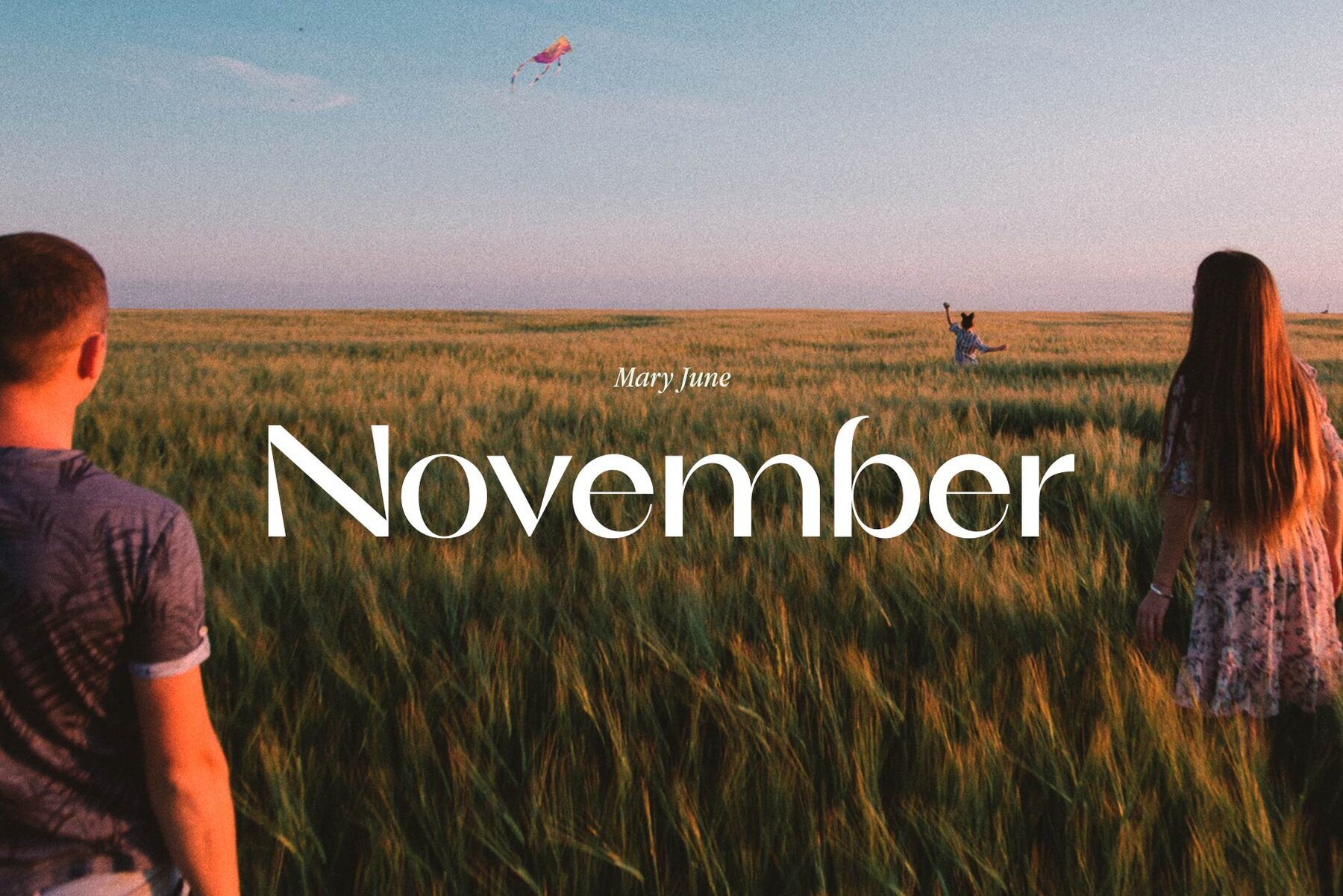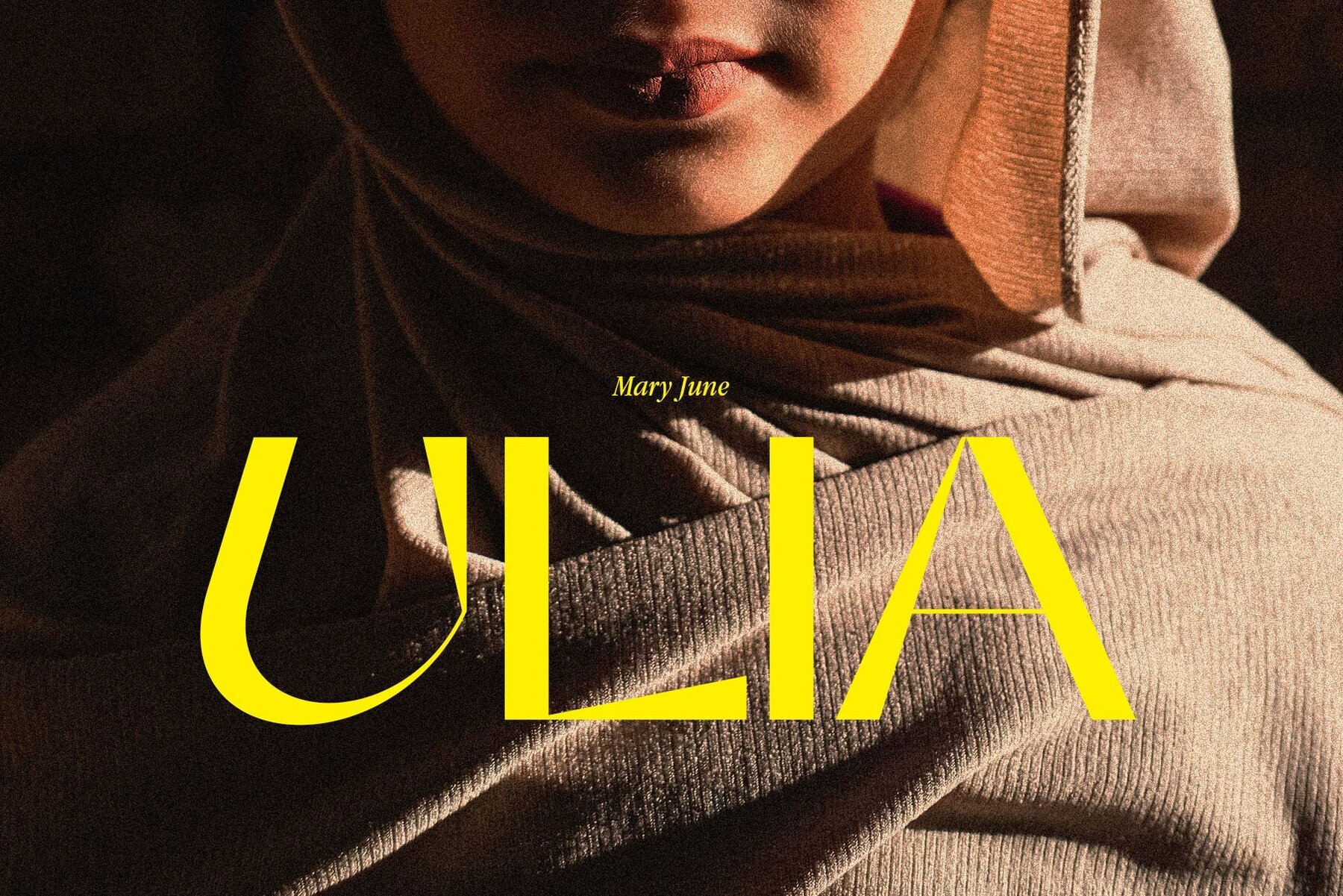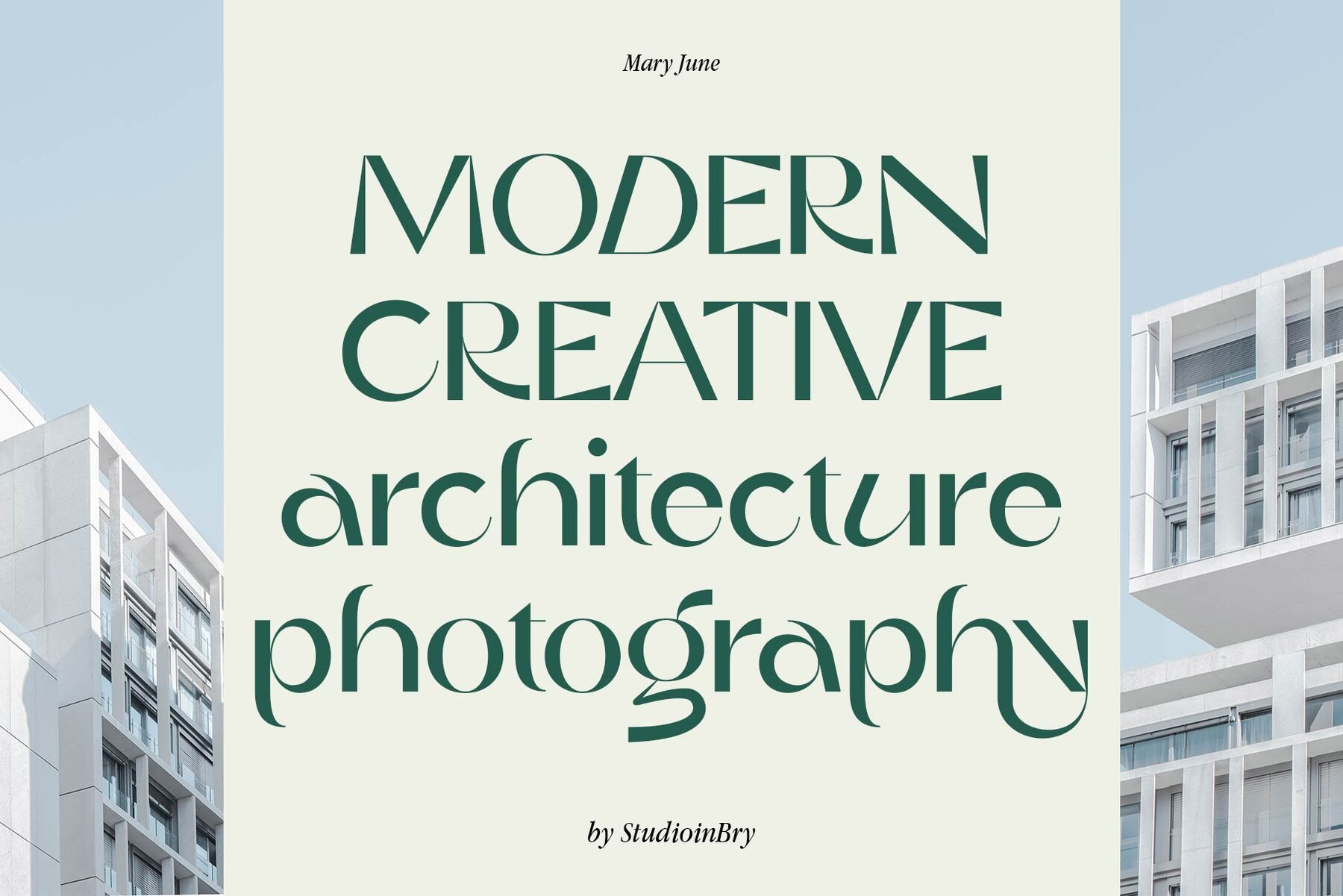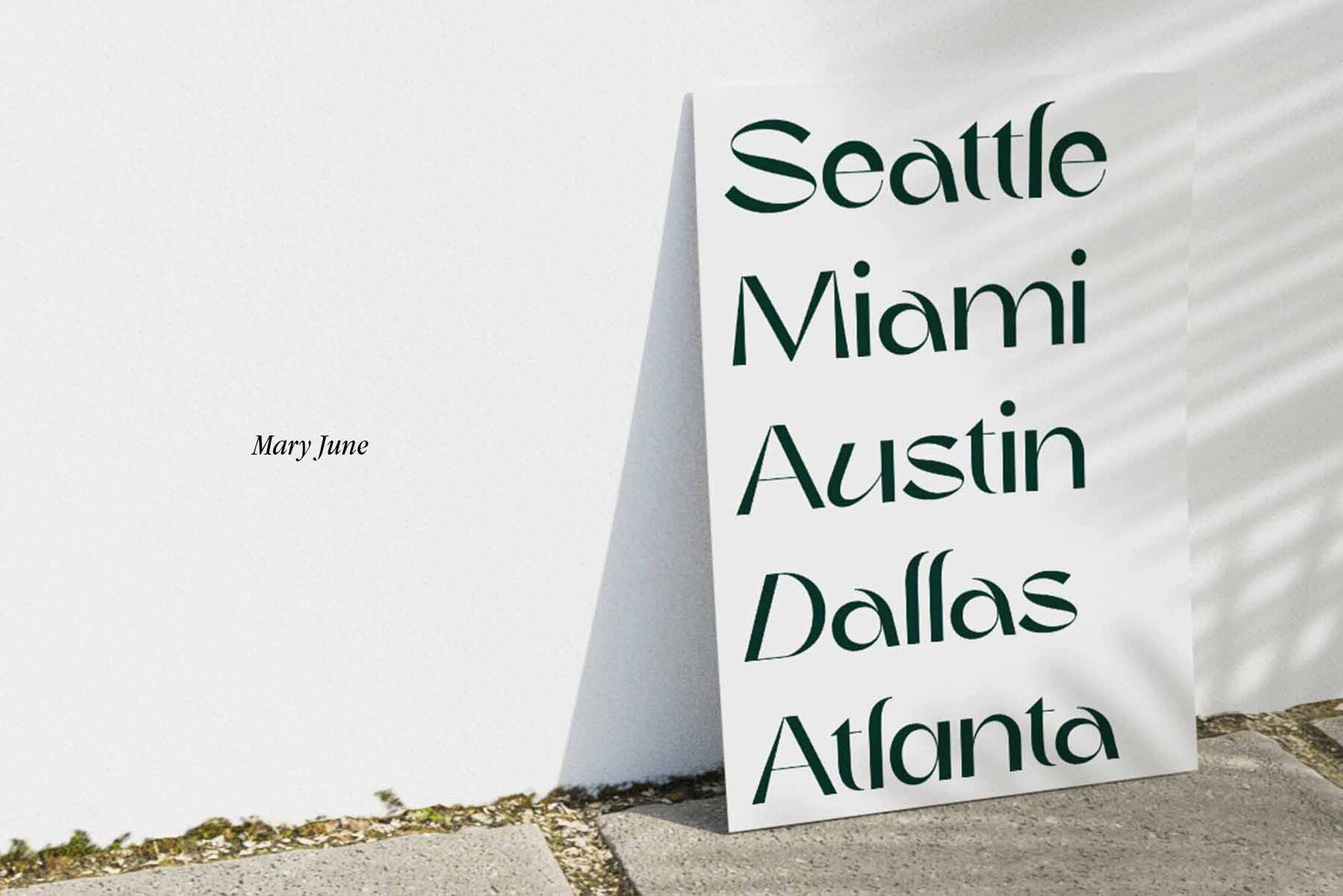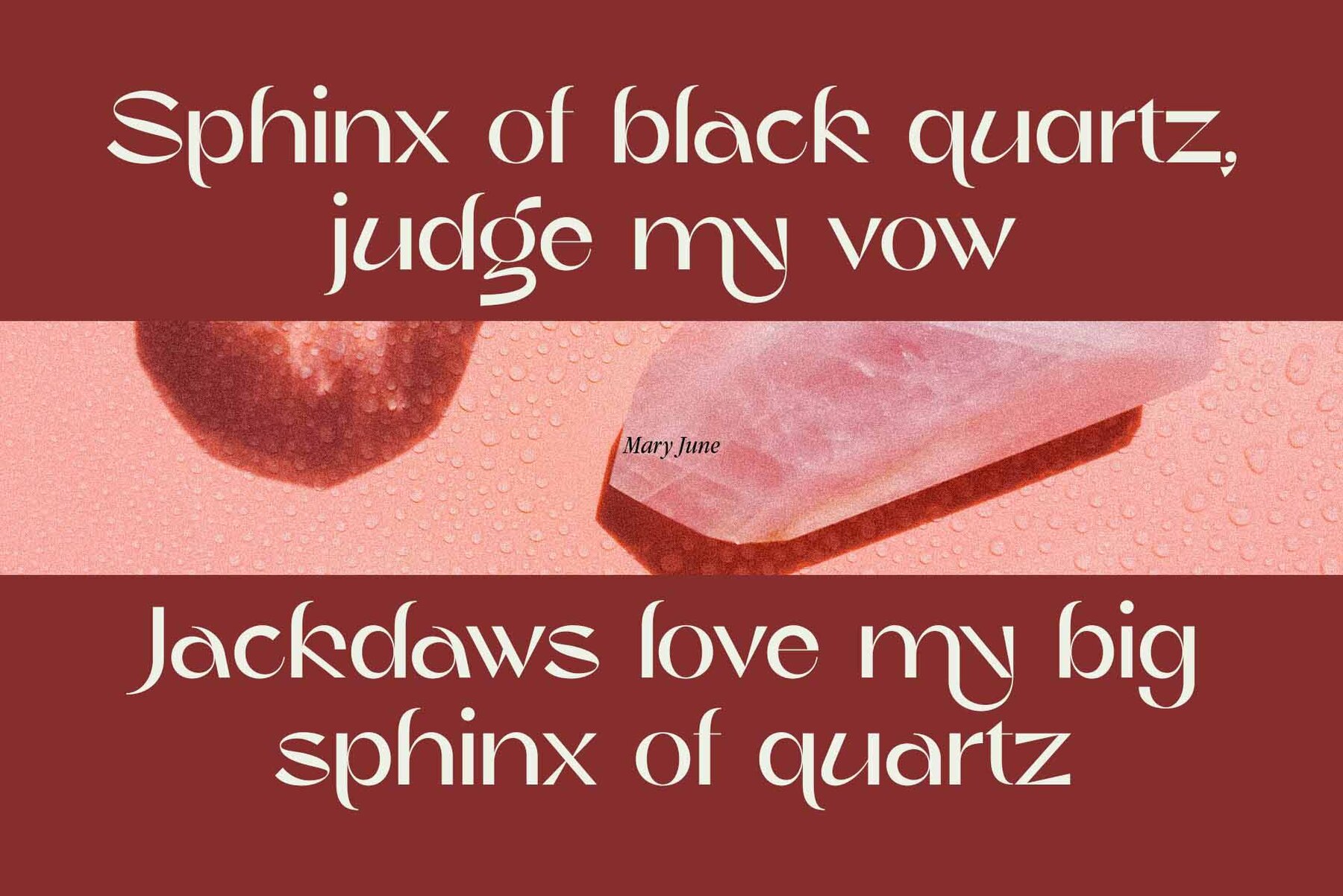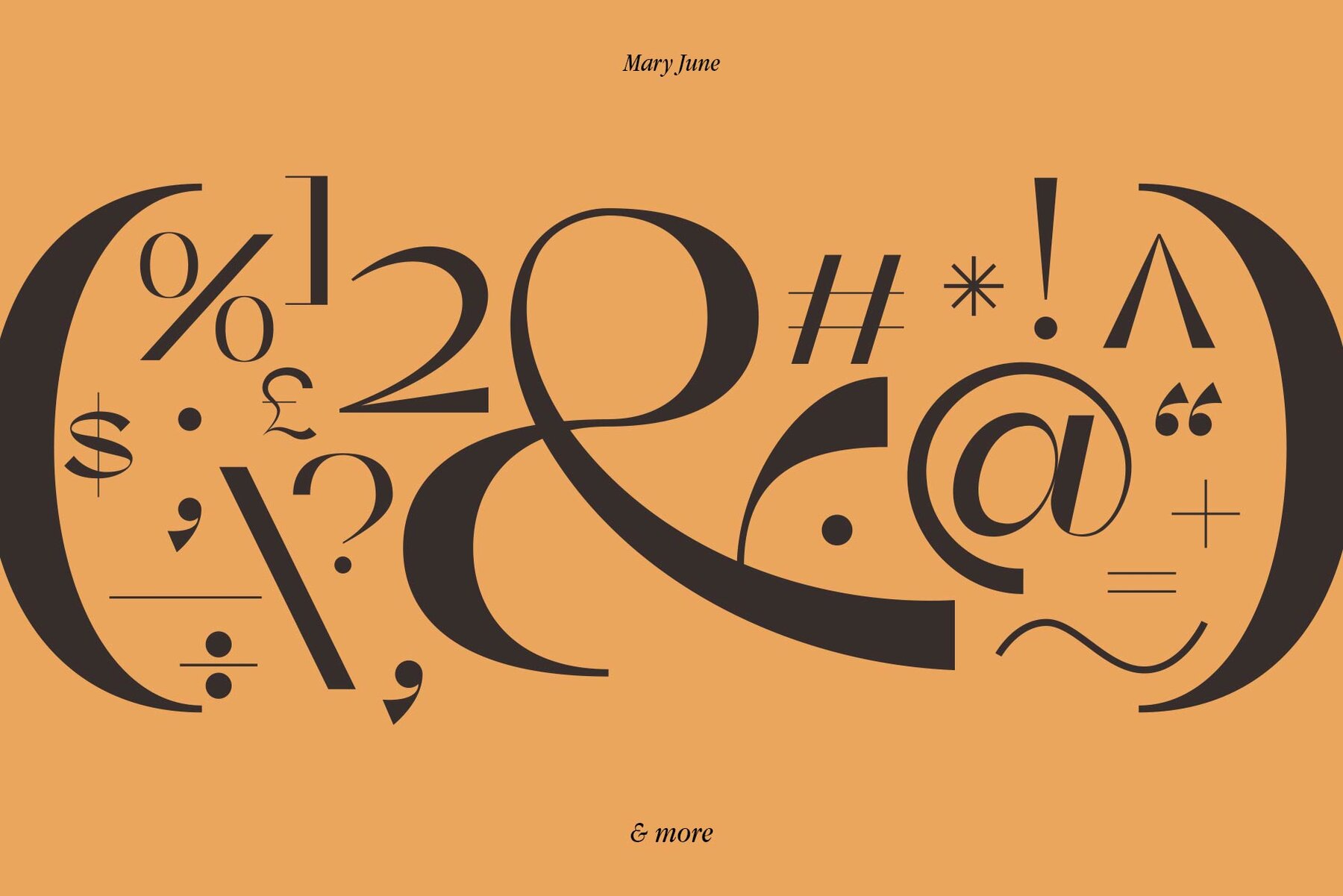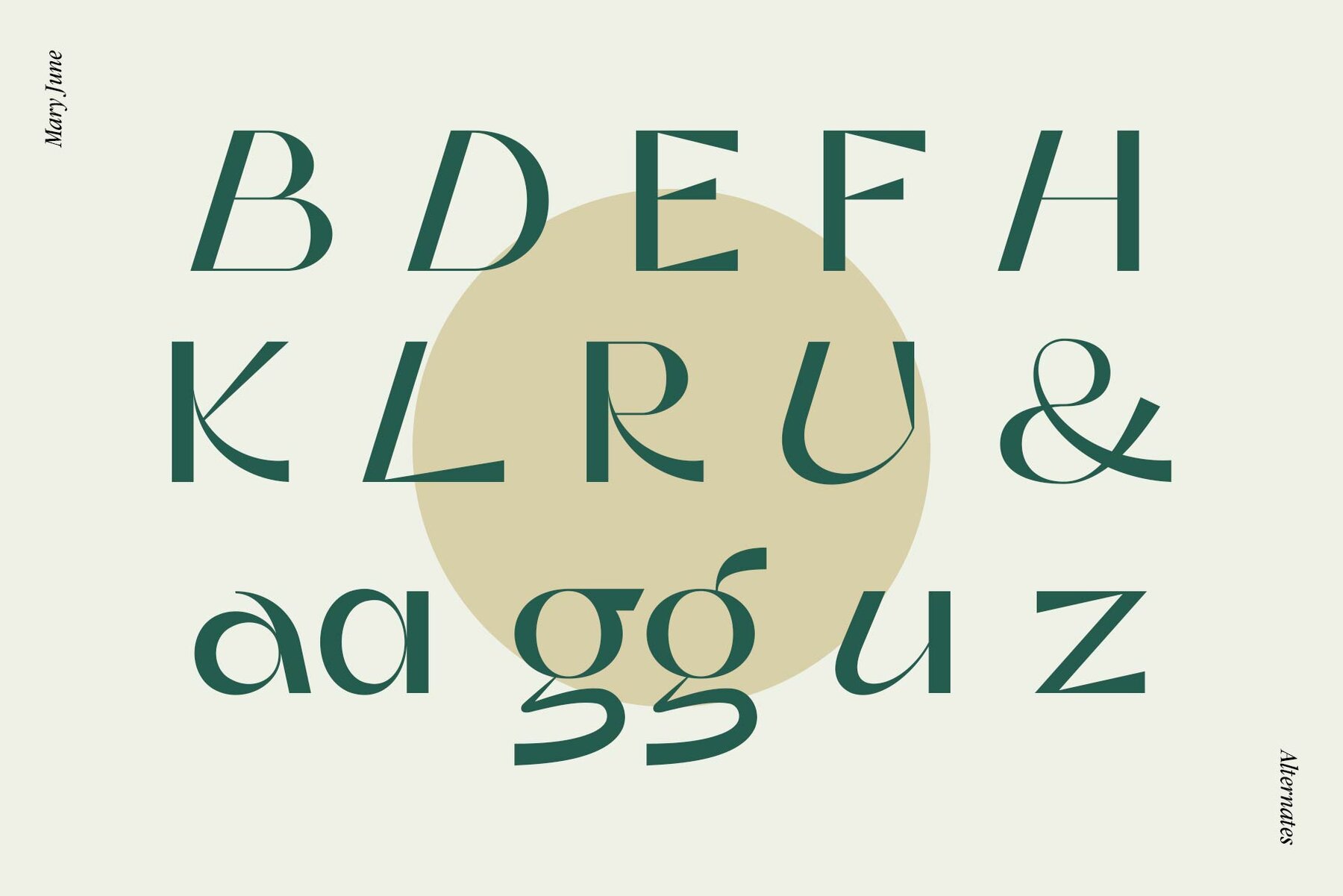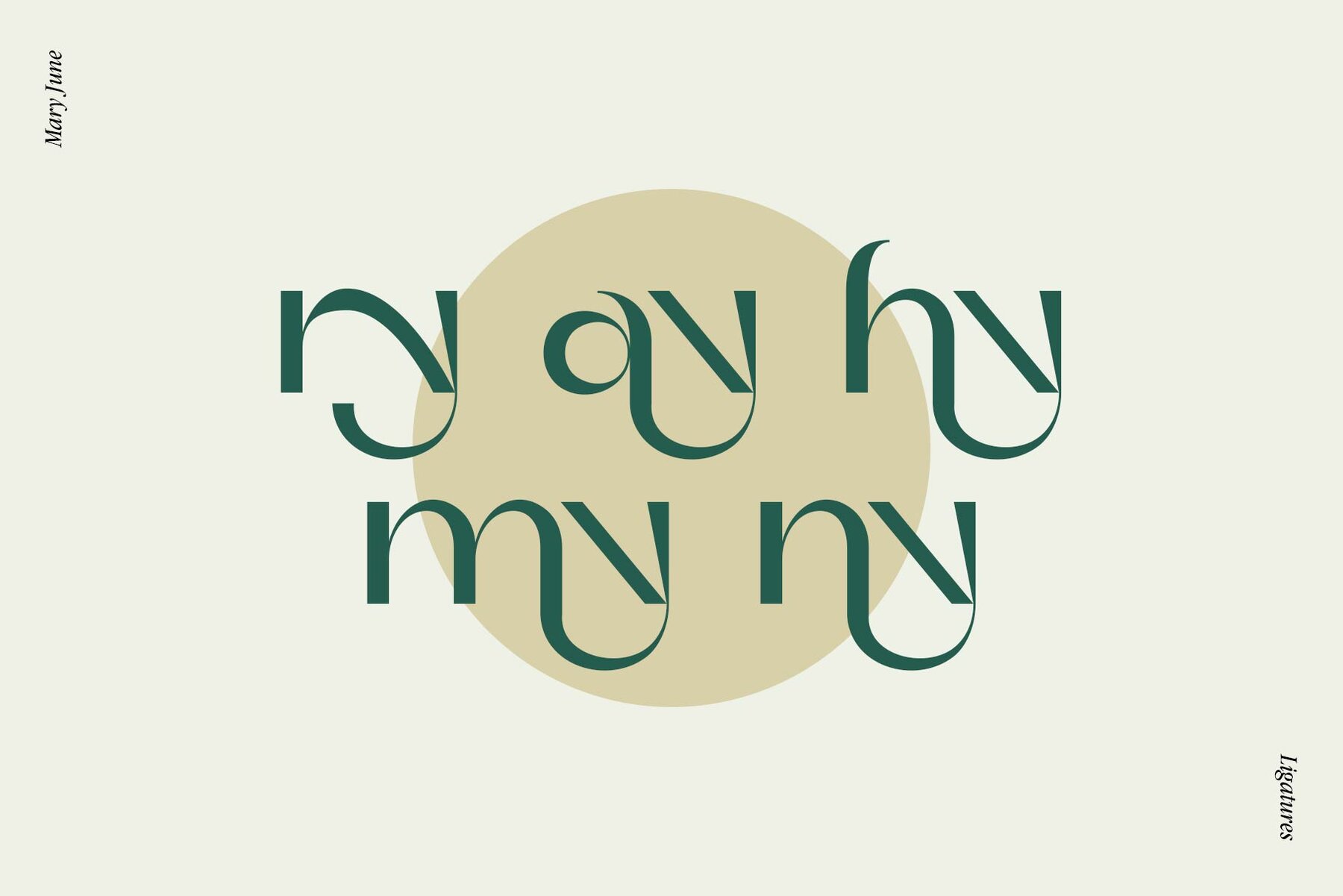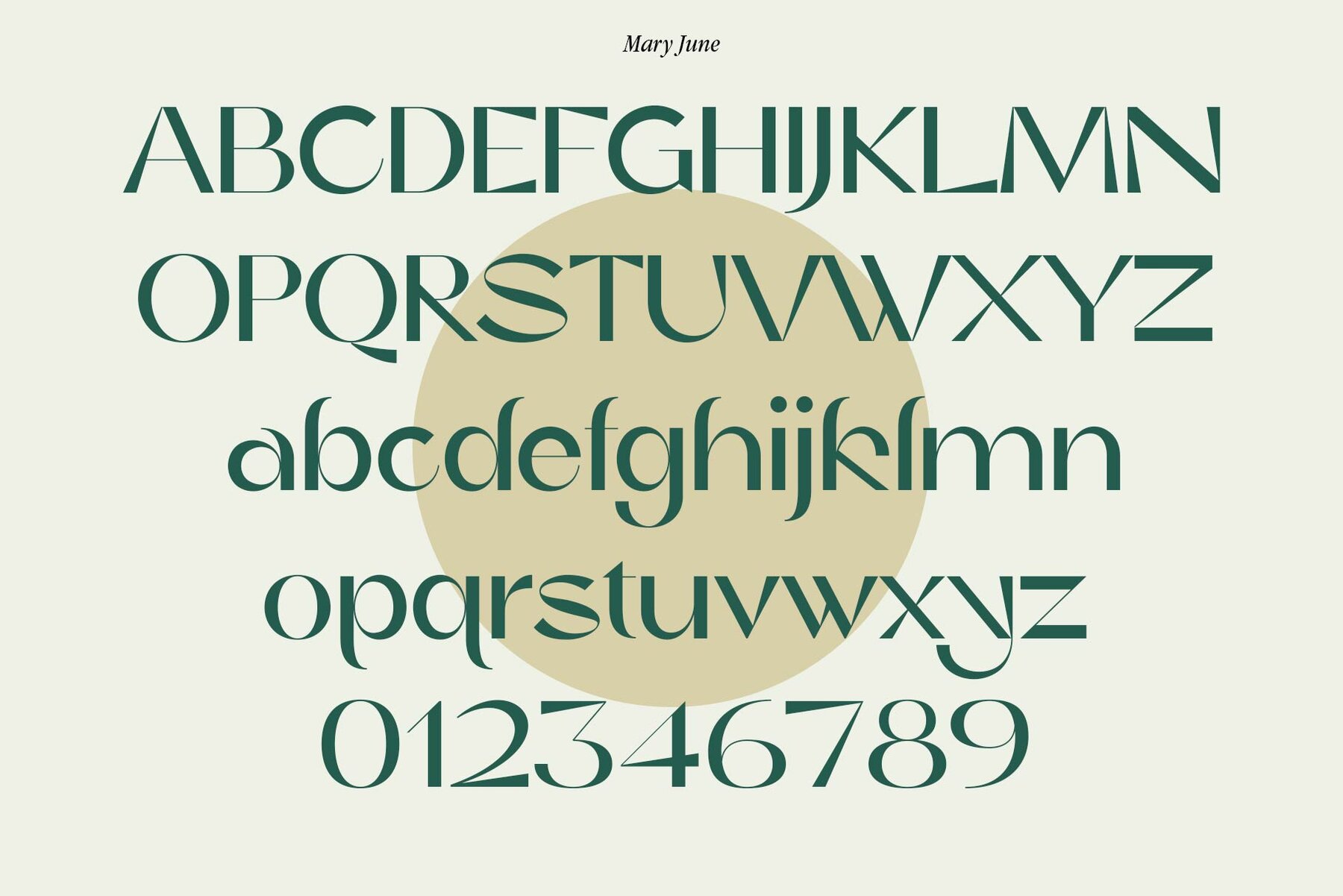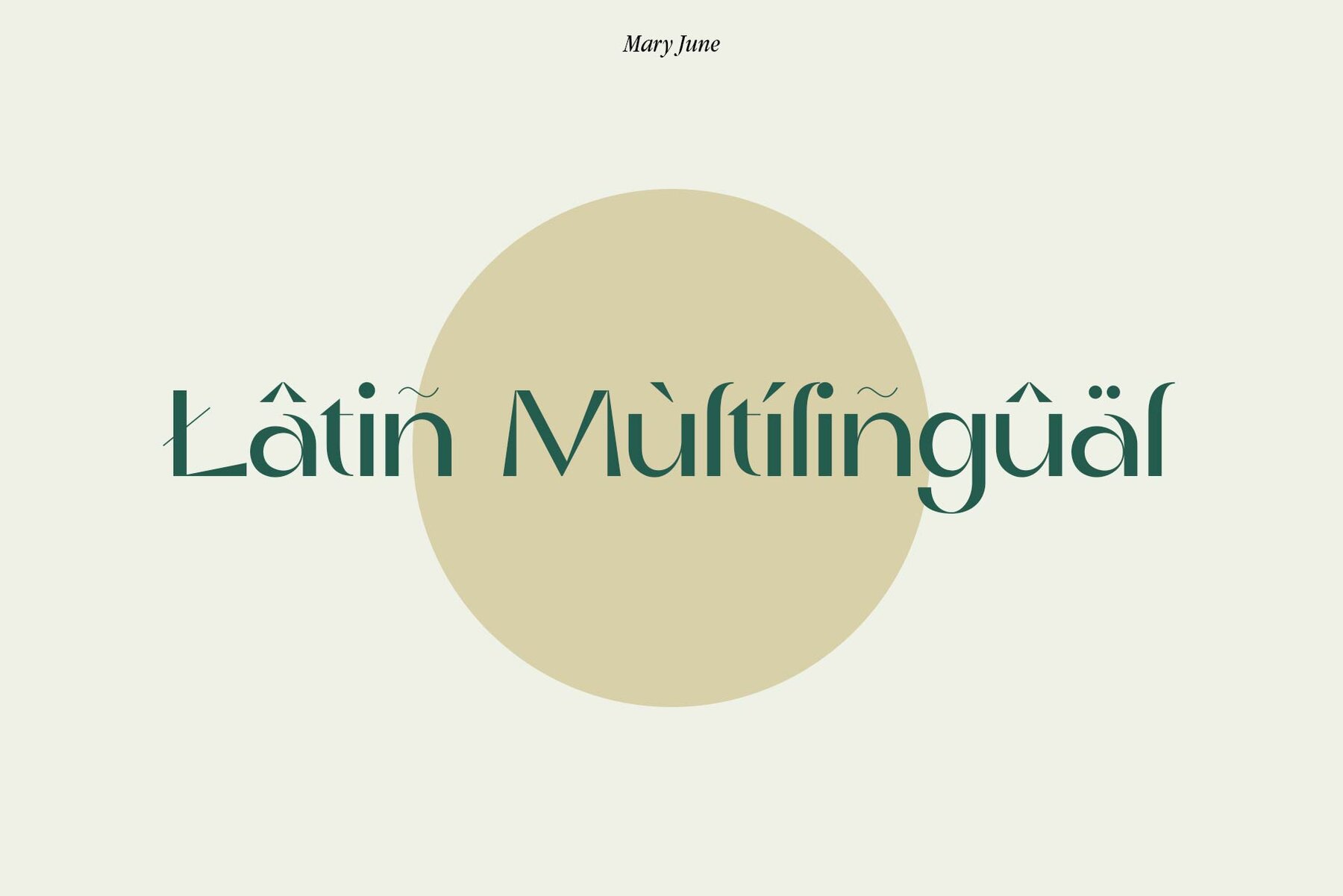
Mary June Font
Mary June Regular
With its high contrast and clean lines, Mary June is the perfect font for any modern brand identity. Its elegant details make it perfect for making an impact on social media, while its Latin multilingual support ensures that your message will reach a global audience.
- UPPERCASE, Lowercase, Numbers, Punctuation.
- Alternates & Ligatures.
- Latin Multilingual Support.